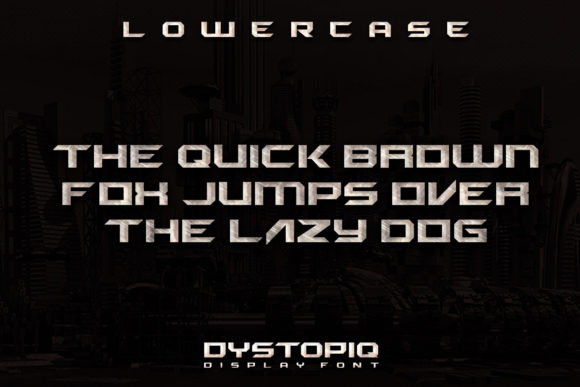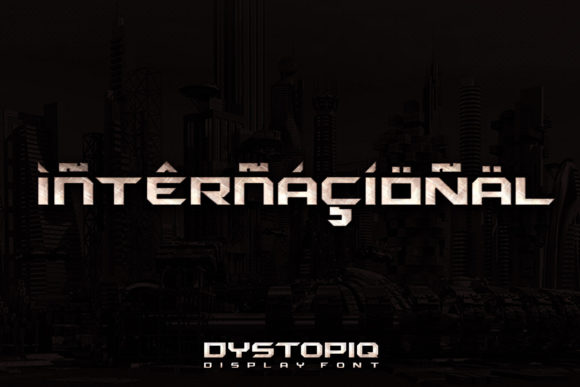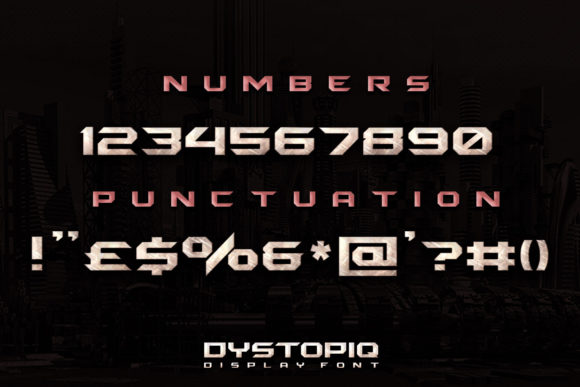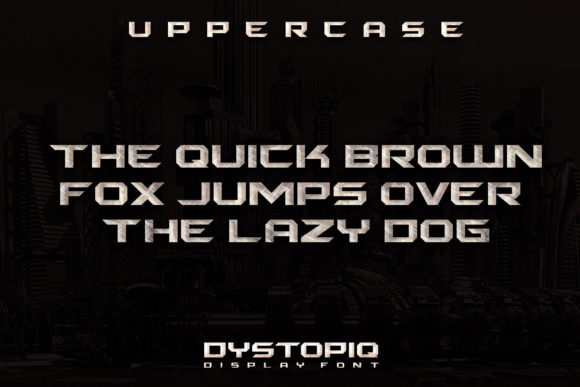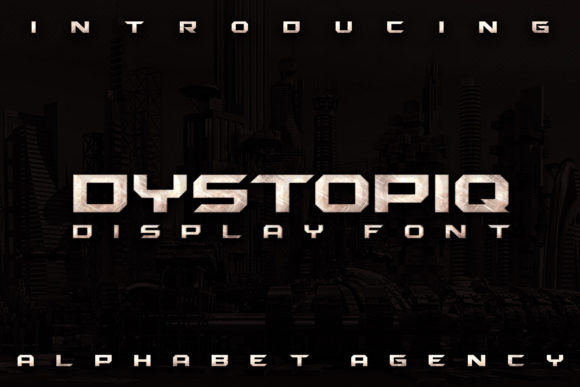
Dystopiq Font: The Ultimate Choice for Modern and Assertive Designs
In the world of typography, fonts play a crucial role in conveying the tone and personality of a design. For designers and crafters looking to add a modern and assertive touch to their work, the Dystopiq font is an excellent choice. This cool, bold, and robotic display font has gained popularity for its versatility and unique aesthetic. In this article, we’ll dive into the features and benefits of the Dystopiq font, exploring its uses and applications in various design projects.
What is Dystopiq Font?
Dystopiq is a display font designed to make a statement. Its bold and robotic appearance gives it a futuristic feel, perfect for designs that require a modern and assertive touch. The font’s sleek lines and geometric shapes create a sense of technological advancement, making it ideal for projects that need to convey innovation and forward-thinking.
Key Features of Dystopiq Font
- Bold and Robotic Appearance: The Dystopiq font boasts a bold and robotic design, making it perfect for headlines, titles, and other display text.
- Modern and Assertive: The font’s sleek and geometric shapes give it a modern and assertive feel, suitable for designs that require a strong and confident look.
- Versatile: Dystopiq is a versatile font that can be used in various design projects, from web designs and business cards to posters and packaging.
- Easy to Read: Despite its bold appearance, the Dystopiq font is easy to read, making it suitable for body text and other longer content.
Uses and Applications of Dystopiq Font
The Dystopiq font is perfect for a wide range of design projects, including:
- Web Designs: Use Dystopiq to create modern and assertive web designs that grab users’ attention.
- Business Cards: Add a professional and bold touch to your business cards with the Dystopiq font.
- Posters and Flyers: Create eye-catching posters and flyers with Dystopiq’s bold and robotic appearance.
- Packaging: Use Dystopiq to create modern and sleek packaging designs that stand out on store shelves.
- Social Media Graphics: Add a bold and modern touch to your social media graphics with the Dystopiq font.
Benefits of Using Dystopiq Font
Using the Dystopiq font in your design projects offers several benefits, including:
- Unique Aesthetic: The Dystopiq font offers a unique and distinctive aesthetic that sets it apart from other fonts.
- Improved Readability: The font’s bold and geometric shapes make it easy to read, even at smaller sizes.
- Versatility: Dystopiq can be used in various design projects, making it a valuable addition to any designer’s font library.
- Time-Saving: With Dystopiq, you can create professional-looking designs quickly and easily, saving you time and effort.
Tips for Using Dystopiq Font
To get the most out of the Dystopiq font, follow these tips:
- Use it for Headlines and Titles: Dystopiq is perfect for headlines and titles, where its bold and robotic appearance can make a statement.
- Pair it with Other Fonts: Experiment with pairing Dystopiq with other fonts to create a unique and visually appealing design.
- Adjust Font Size and Color: Adjust the font size and color to suit your design needs and ensure optimal readability.
In conclusion, the Dystopiq font is a versatile and modern display font that’s perfect for designers and crafters looking to add a bold and assertive touch to their work. With its unique aesthetic, improved readability, and versatility, Dystopiq is an excellent choice for various design projects. By following the tips outlined in this article, you can get the most out of the Dystopiq font and create stunning designs that grab attention.